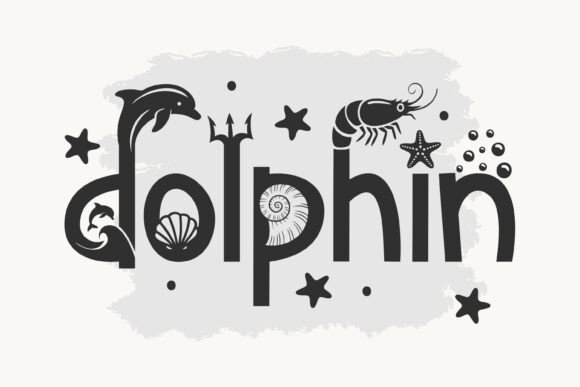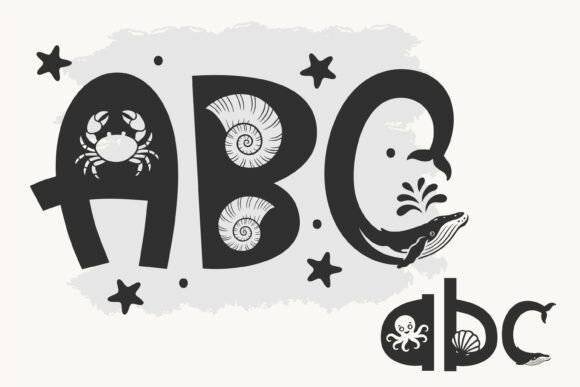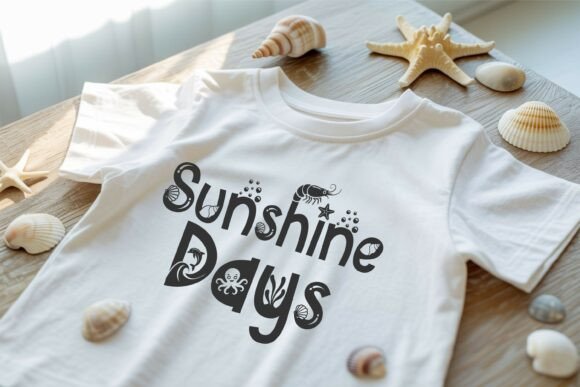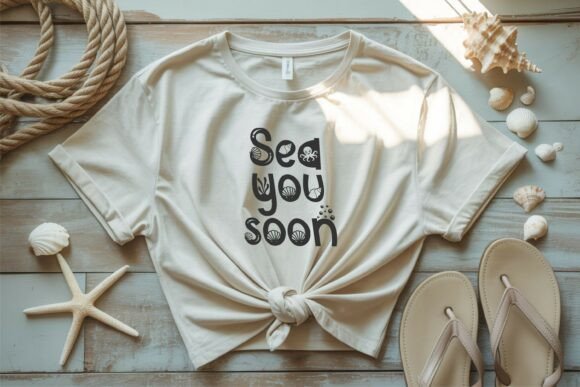
Sandy Wink Sea Font
Dive into a world of playful typography with Sandy Wink Sea typeface—a spirited, sea-inspired decorative font overflowing with oceanic charm. Bold letterforms, lively curves, and delightful aquatic details like fish, octopuses, and seashells are intricately woven into each character, infusing your designs with maritime magic. Perfect for children’s birthday shirts, beach-themed invitations, baby celebrations, classroom crafts, and Cricut or Silhouette projects, Sandy Wink Sea radiates joy and friendliness with every glyph. Its unique styling brings an unmistakable coastal vibe to any creation, from Procreate illustrations and teacher resources to ocean-inspired décor.